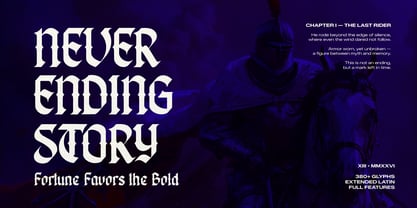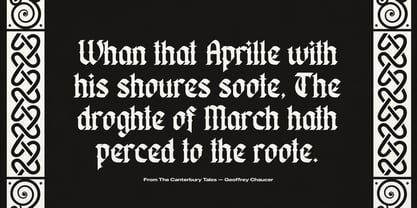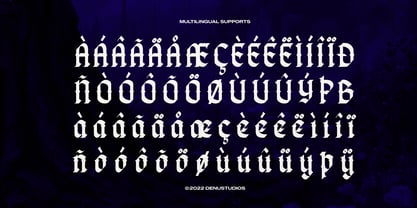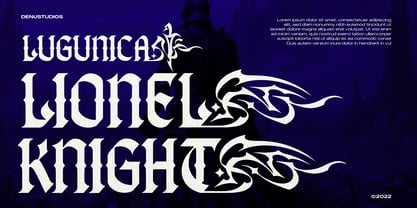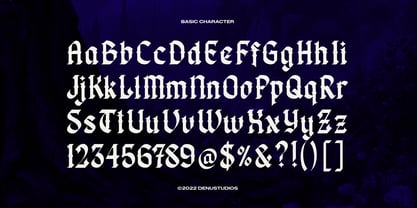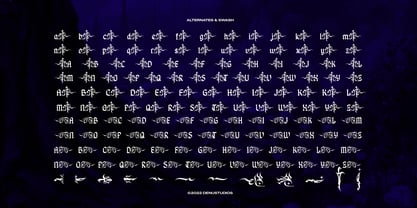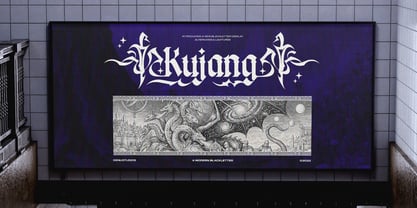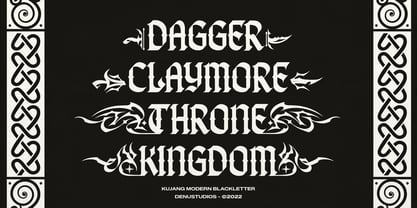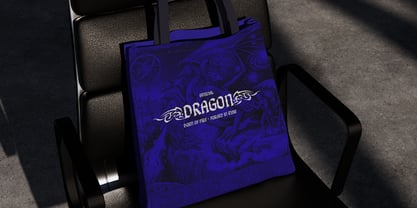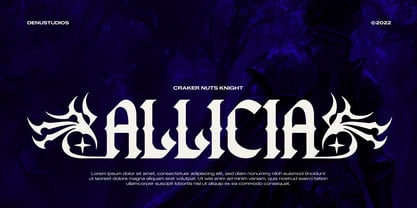
Kujang
by Denustudio
The Kujang Font Family was designed by Dede Nugraha and published by Denustudio. Kujang contains 1 styles. More about this family
Kujang | Modern Blackletter, from Denustudios, suitable for any projects such as: logos, branding projects, homeware designs, product packaging, mugs, quotes, posters, shopping bags, t-shirts, book covers, name card, invitation cards, greeting cards, label, photography, watermark, special events, and all your other lovely projects that need Tattoo a taste.